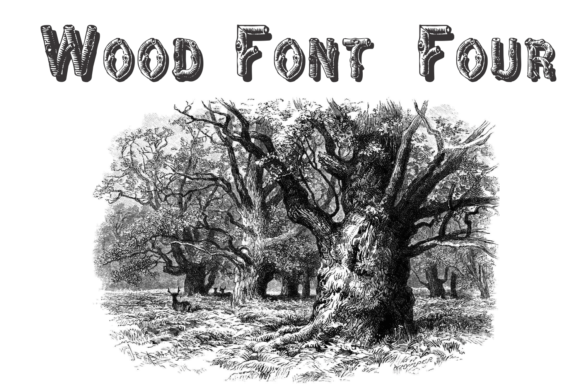
Wood Font Four
Decorative font inspired by tree branches and natural elements. The Wood Font Four is a display and decorative font built upon the theme of wood. Great for display purposes in projects about nature and environmental topics